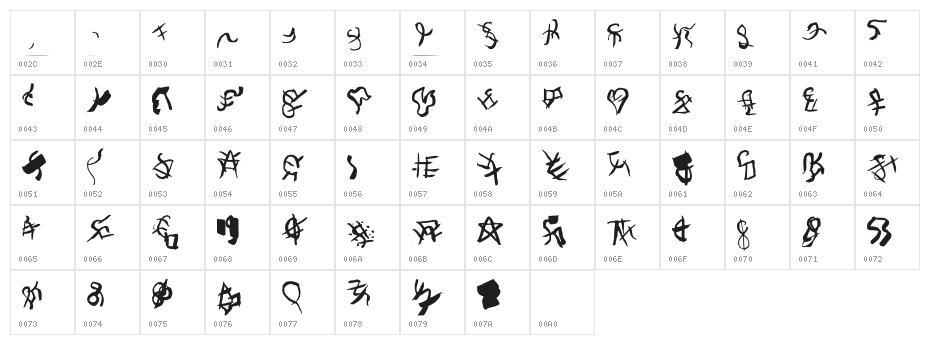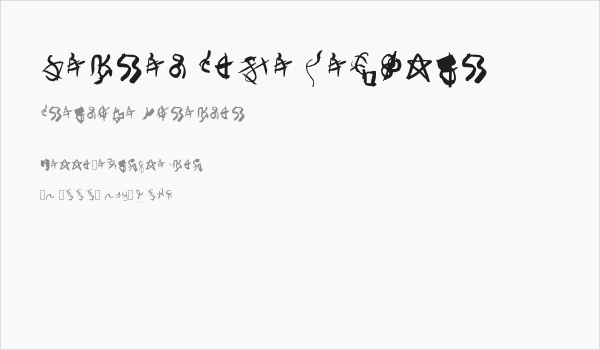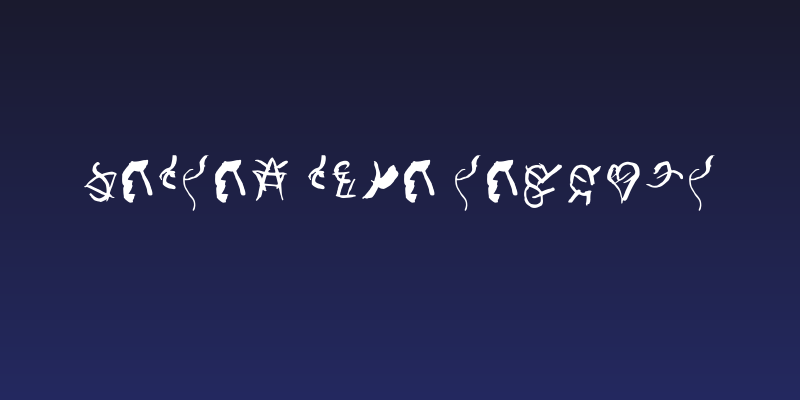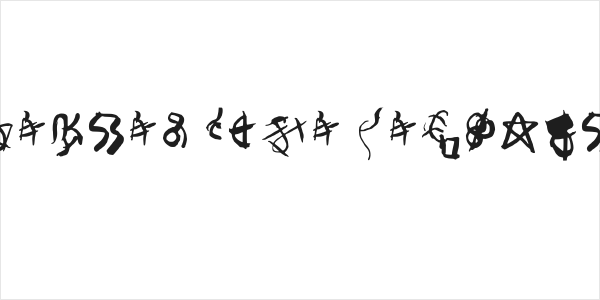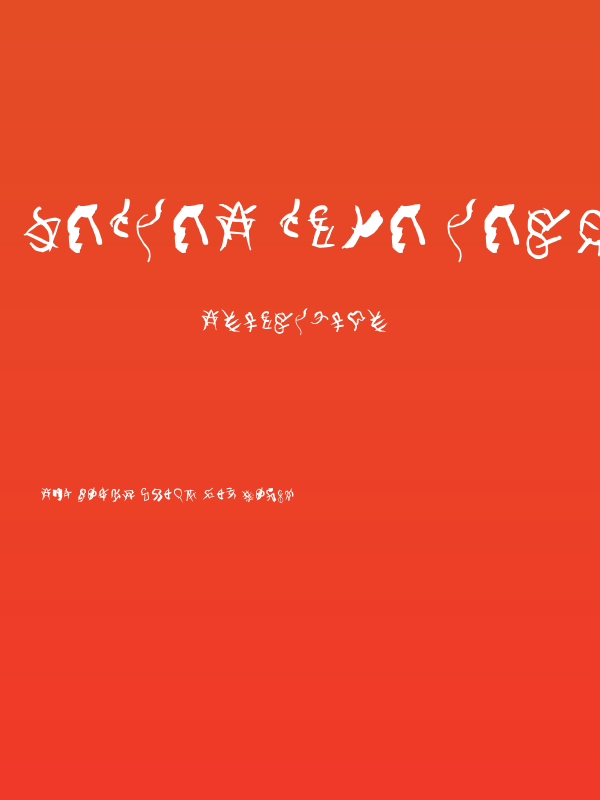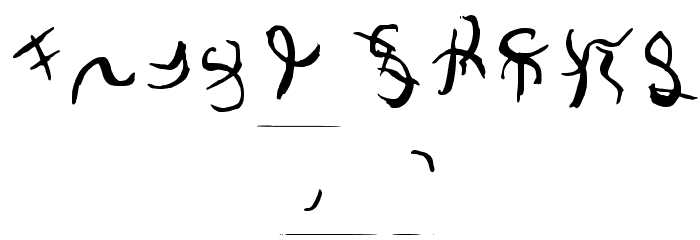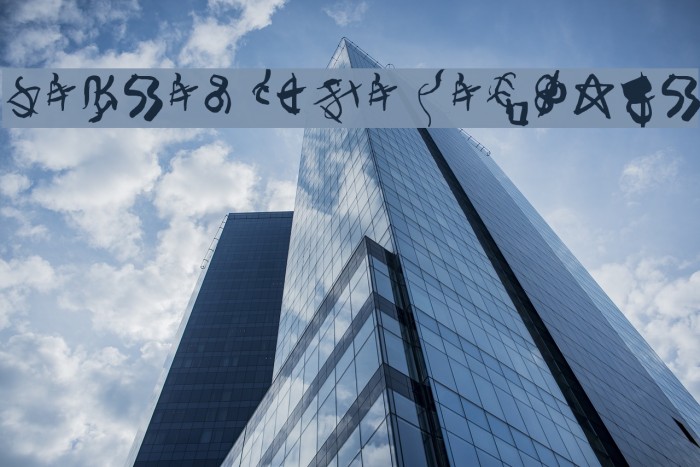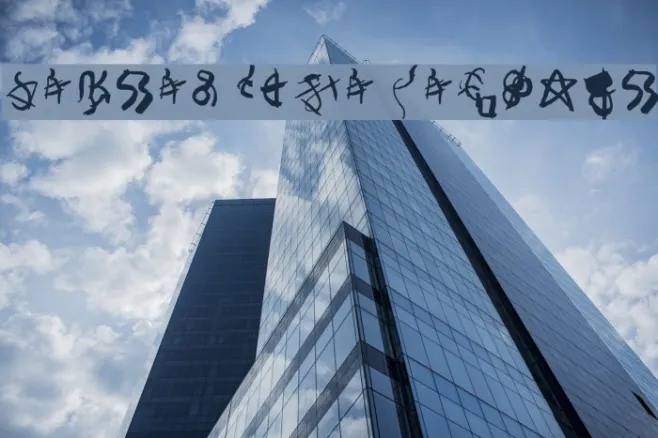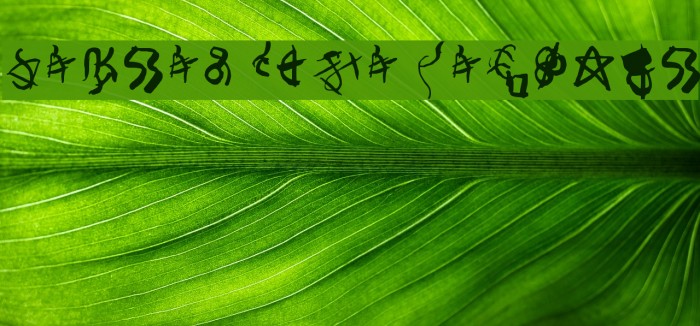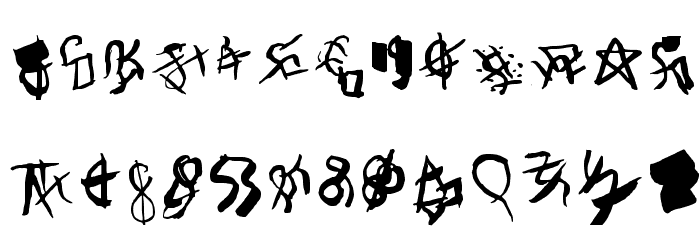
Secret Code Regular Font
Secret Code Regular Description
This font presents an intricate and abstract design, characterized by its highly stylized and cryptic appearance. Each character is uniquely crafted with complex curves and angles, creating a sense of mystery and enigma. The font's artistic flair makes it resemble ancient scripts or coded symbols, offering a visually striking and unconventional aesthetic. Its bold strokes and irregular forms contribute to a dramatic and avant-garde style, making it stand out in any design context. The font's decorative nature suggests it is more suited for artistic or thematic projects rather than practical text applications.
| Overall Style | Avant-garde, Mysterious, Artistic |
| Use Case | Logos, Artistic projects, Themed designs |
| Proposed Projects | Ideal for artistic projects, themed posters, escape room designs, or any creative work requiring a mysterious or coded aesthetic. |